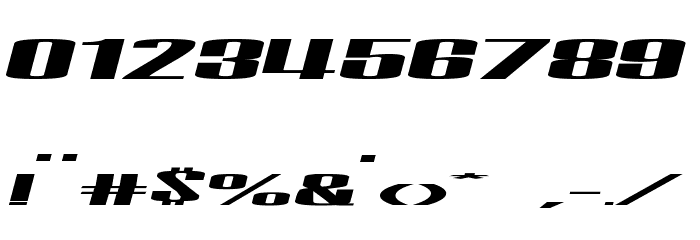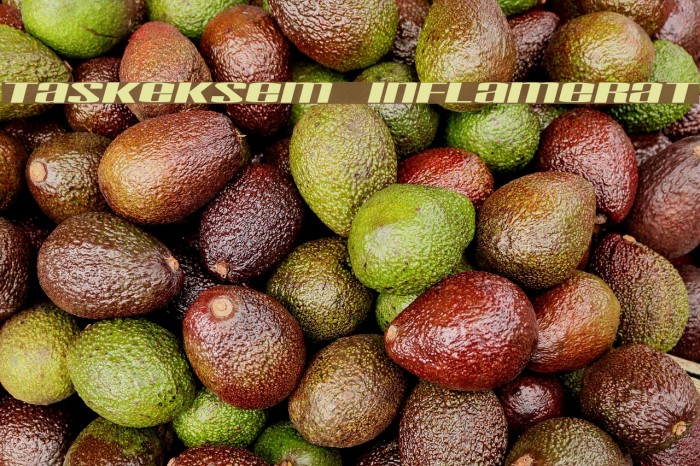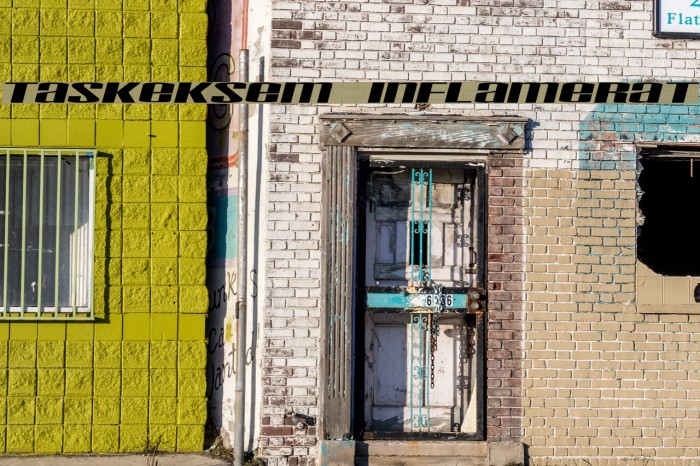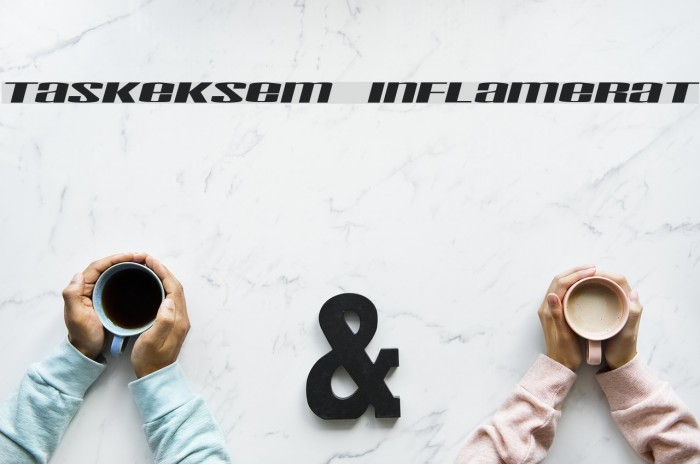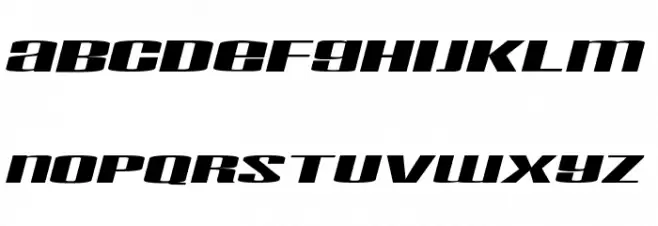
Taskeksem inflamerat Font
Taskeksem inflamerat Description
This font exhibits a bold and dynamic style with a strong emphasis on angular and geometric shapes. The characters are slightly slanted, giving a sense of movement and energy. The uppercase and lowercase letters maintain a consistent width, creating a uniform appearance. The numbers and special characters follow the same design principles, ensuring cohesion across all elements. The font's boldness and unique style make it stand out, suitable for projects that require a modern and impactful look.
A bold, angular font with a dynamic and modern style from Military fonts.
- Proposed Projects: Ideal for sports branding, dynamic posters, modern advertisements, and edgy graphic designs.